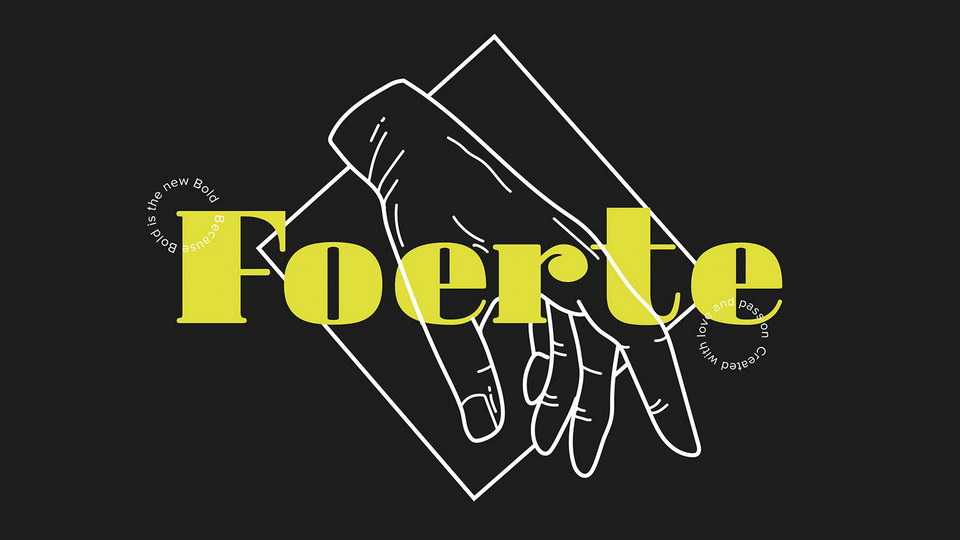
Download Foerte font, a bold, powerful and yet elegant serif typeface. Foerte is a great accent font. It perfectly fits for an eye-catching messages, posters, headlines, magazines, covers and more.
Designer: Natali Kalpakova